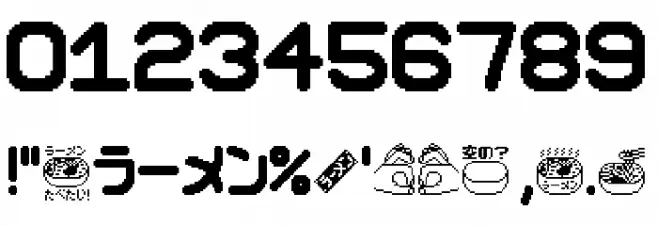
Pixel - Ramen Font
Pixel - Ramen Description
This font features a pixelated, retro style reminiscent of early digital displays and video games. The characters are composed of blocky, square shapes that give it a distinct, nostalgic feel. Uppercase and lowercase letters maintain a consistent height, contributing to a uniform appearance. The numerals are bold and easily distinguishable, while the special characters add a playful touch with their unique designs. This font's pixelated aesthetic makes it ideal for projects that aim to evoke a sense of nostalgia or a vintage digital theme.
A pixelated, retro font with a nostalgic digital aesthetic from Pixel fonts.
- Font: Pixel - Ramen
by Piotrkovynia - Weight: Regular
- Proposed Projects: Ideal for video game design, retro-themed posters, digital art, and any project seeking a vintage digital look.
- Overall Style: Vintage
- Use Case: Logos, Headlines, Digital Art